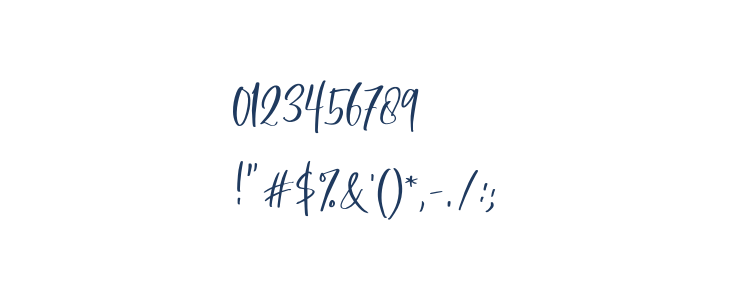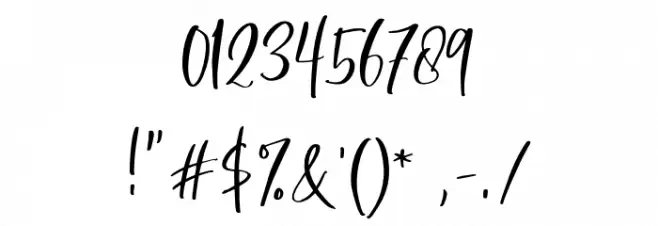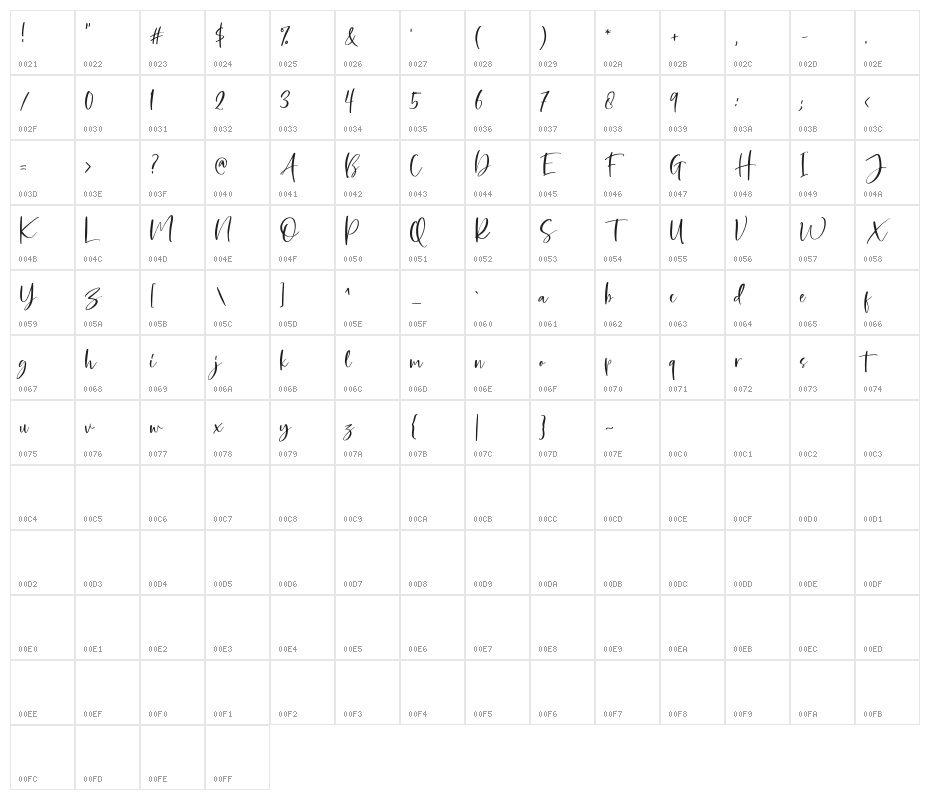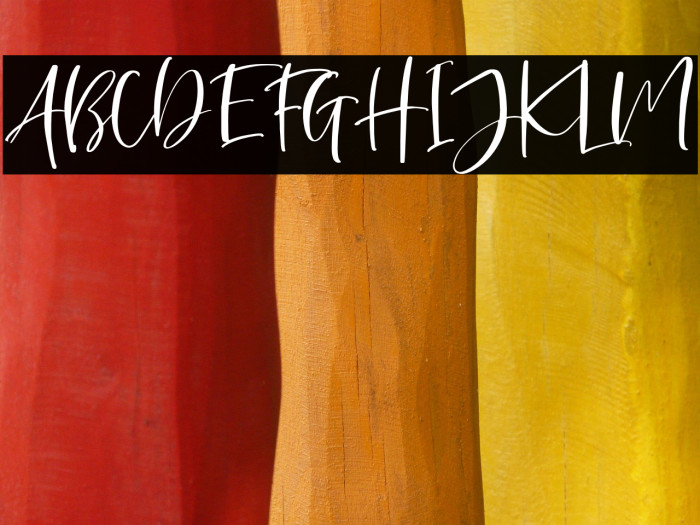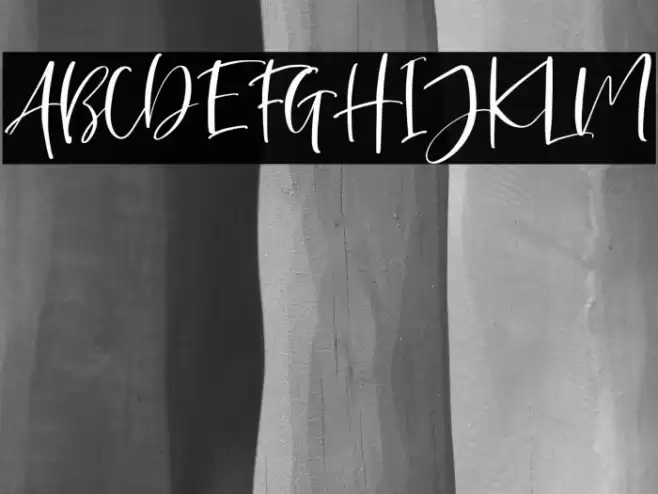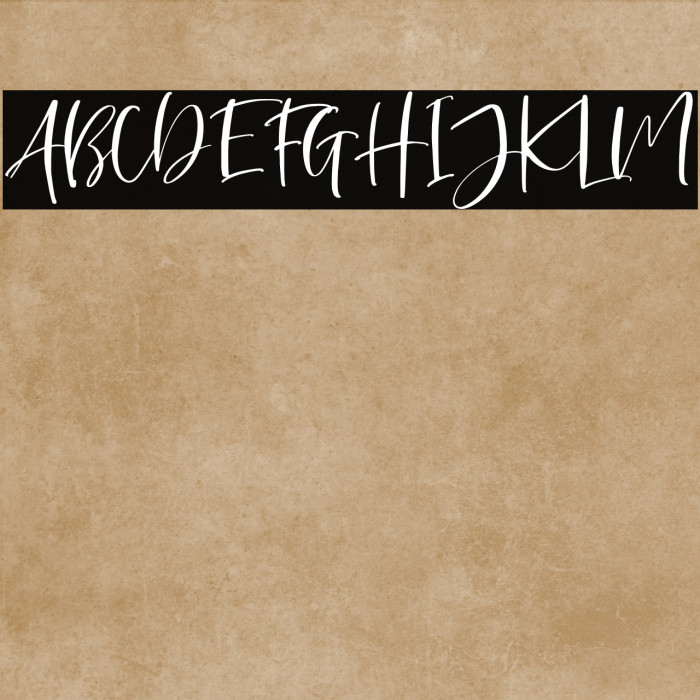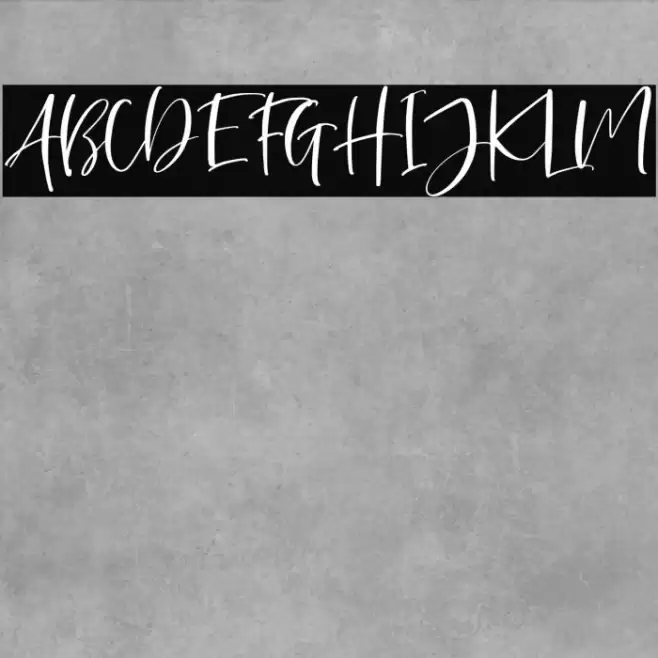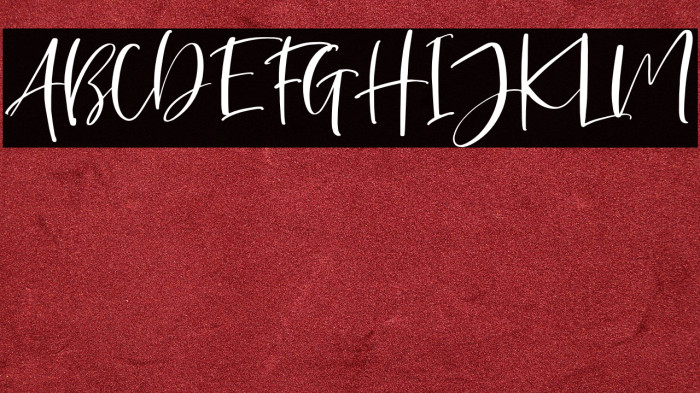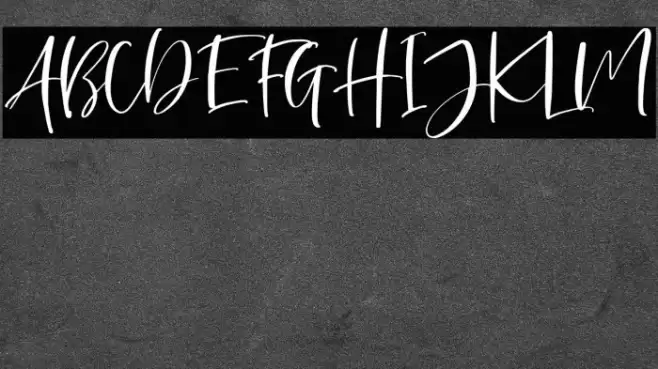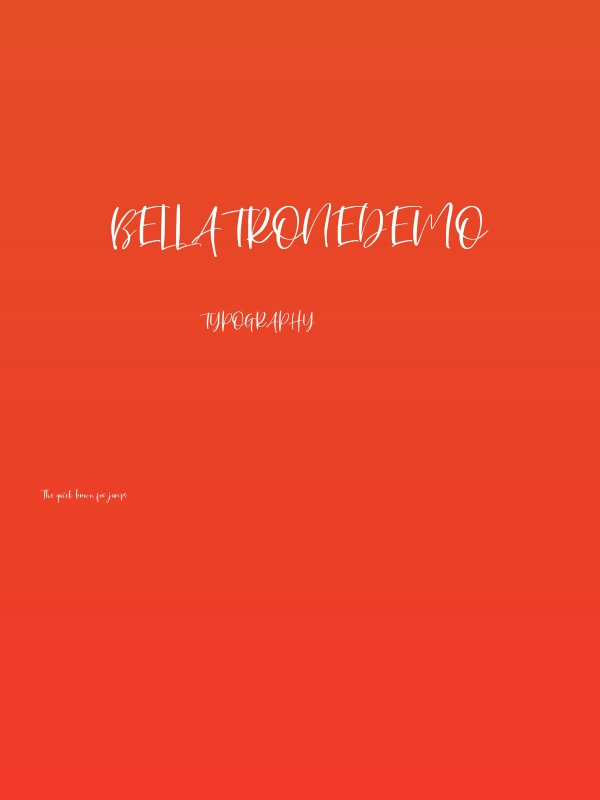
BellatroneDEMO Font
BellatroneDEMO Description
This font exudes a lively and expressive style, characterized by its fluid and dynamic strokes. The letters have a handwritten quality, with a playful yet elegant flair. The uppercase letters are bold and sweeping, while the lowercase letters maintain a consistent flow, adding to the overall cohesiveness of the design. The numbers and special characters are crafted with the same attention to detail, ensuring a harmonious look across all elements. The font's organic curves and varying line thicknesses give it a sense of movement and personality, making it suitable for creative and artistic projects.